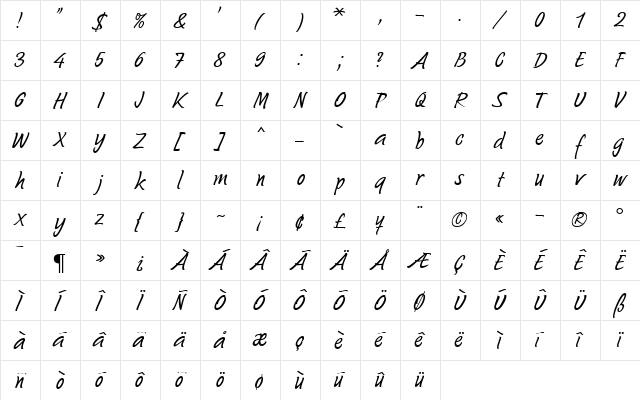
Sayer Script MN Light
Design Context for Sayer Script MN Typeface
Sayer Script MN flows with the natural rhythm of handwritten lettering, making it ideal for designs that call for warmth and personal expression. Its slender proportions lend an understated elegance to any composition.
Font Pairing: Combine Sayer Script MN with a simple geometric sans for maximum contrast — the tension between flowing curves and clean structure is a classic typographic pairing.
Pro Tip: Use Sayer Script MN for short runs of text — names, titles, or taglines. Extended body copy in script faces tires the eye quickly.